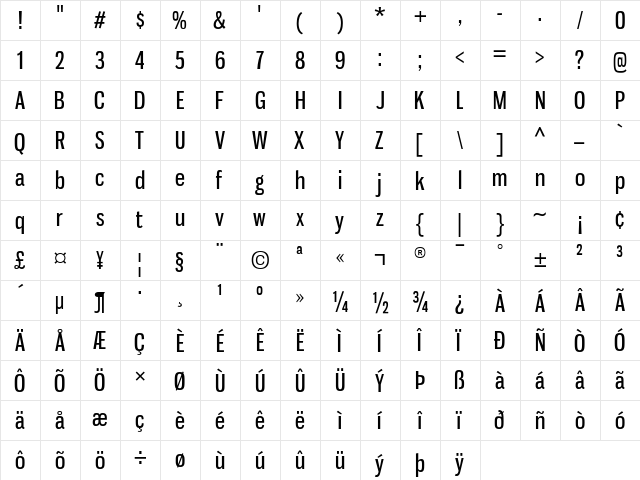
Gnuolane Regular
Design Context for Gnuolane Typeface
Gnuolane is a composed and adaptable typeface that performs quietly and consistently across a wide range of design contexts.